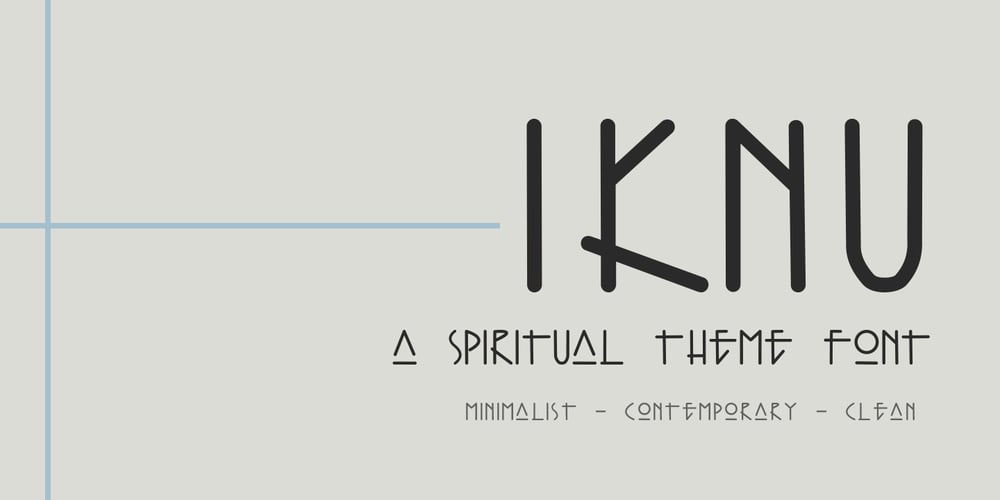
Iknu font Font Family was designed by Bernardo Ramonfaur and published by Iknu. Iknu font contains 1 styles and family package options. Iknu is a contemporary, minimal font that expresses spiritual life in its simplicity and mistery. Great font for religious / spiritual content and any other that needs a simple attractive font.